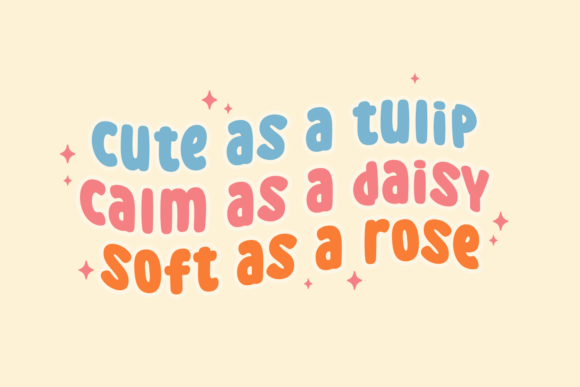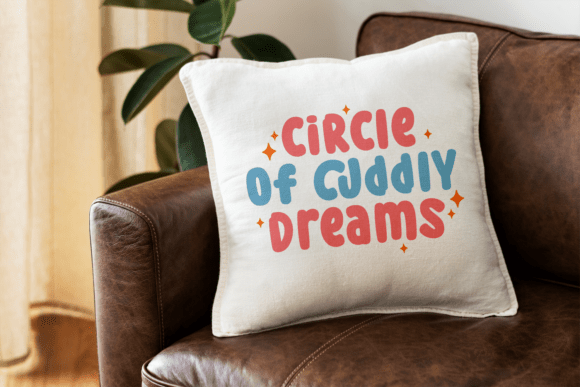
Meet Cuppsy: The Ultimate Font for Adding a Splash of Fun and Personality to Your Designs
Are you tired of using the same old fonts in your designs? Do you want to add a touch of personality and whimsy to your projects? Look no further than Cuppsy, a super fun and bubbly display typeface that’s sure to make your designs pop! With its chunky, rounded letters and smooth ligatures, Cuppsy is the perfect font for adding a cheerful and friendly vibe to your designs.
What Makes Cuppsy So Special?
Cuppsy is more than just a font – it’s an experience. Its unique blend of chunky and rounded letters creates a playful and eye-catching effect that’s sure to grab attention. The smooth ligatures add a touch of sophistication, making Cuppsy perfect for a wide range of design projects, from adorable quotes and playful branding to cute packaging and social media posts.
Whether you’re a designer, crafter, or simply someone who loves to create, Cuppsy is the perfect font for you. Its versatility and playfulness make it ideal for a wide range of projects, including:
- Adorable quotes and sayings
- Playful branding and logos
- Cute packaging and labels
- Kid-friendly projects and materials
Bring a Big Smile to Your Audience
With Cuppsy, you can add a big smile to your audience’s face. Its cheerful and friendly vibe is sure to brighten up even the most mundane designs, making them more engaging and memorable. Whether you’re creating a fun and playful brand identity or simply want to add some personality to your social media posts, Cuppsy is the perfect font for the job.
Make Your Designs Brighter, Cuter, and More Eye-Catching
Cuppsy is more than just a font – it’s a design solution. Its unique blend of chunky and rounded letters creates a visually appealing effect that’s sure to grab attention. With Cuppsy, you can:
- Add a touch of personality to your designs
- Create fun and playful brand identities
- Make your social media posts more engaging and memorable
- Design cute and eye-catching packaging and labels
The Benefits of Using Cuppsy
So why choose Cuppsy over other fonts? Here are just a few benefits of using Cuppsy in your designs:
- Unique and eye-catching design: Cuppsy’s chunky, rounded letters and smooth ligatures create a visually appealing effect that’s sure to grab attention.
- Versatility: Cuppsy is perfect for a wide range of design projects, from adorable quotes and playful branding to cute packaging and social media posts.
- Easy to read: Despite its playful design, Cuppsy is easy to read and understand, making it perfect for designs that need to communicate a message.
- Fun and playful vibe: Cuppsy adds a cheerful and friendly vibe to your designs, making them more engaging and memorable.
Get Ready to Make Your Designs Unforgettable!
With Cuppsy, you can create designs that are truly unforgettable. Its unique blend of chunky and rounded letters, smooth ligatures, and cheerful vibe make it the perfect font for adding a touch of personality to your designs. So why wait? Download Cuppsy today and start creating designs that will leave a lasting impression on your audience!
In conclusion, Cuppsy is a super fun and bubbly display typeface that’s perfect for adding a touch of personality and whimsy to your designs. Its unique blend of chunky and rounded letters, smooth ligatures, and cheerful vibe make it the perfect font for a wide range of design projects. Whether you’re a designer, crafter, or simply someone who loves to create, Cuppsy is the perfect font for you. So why wait? Download Cuppsy today and start creating designs that will make your audience smile!